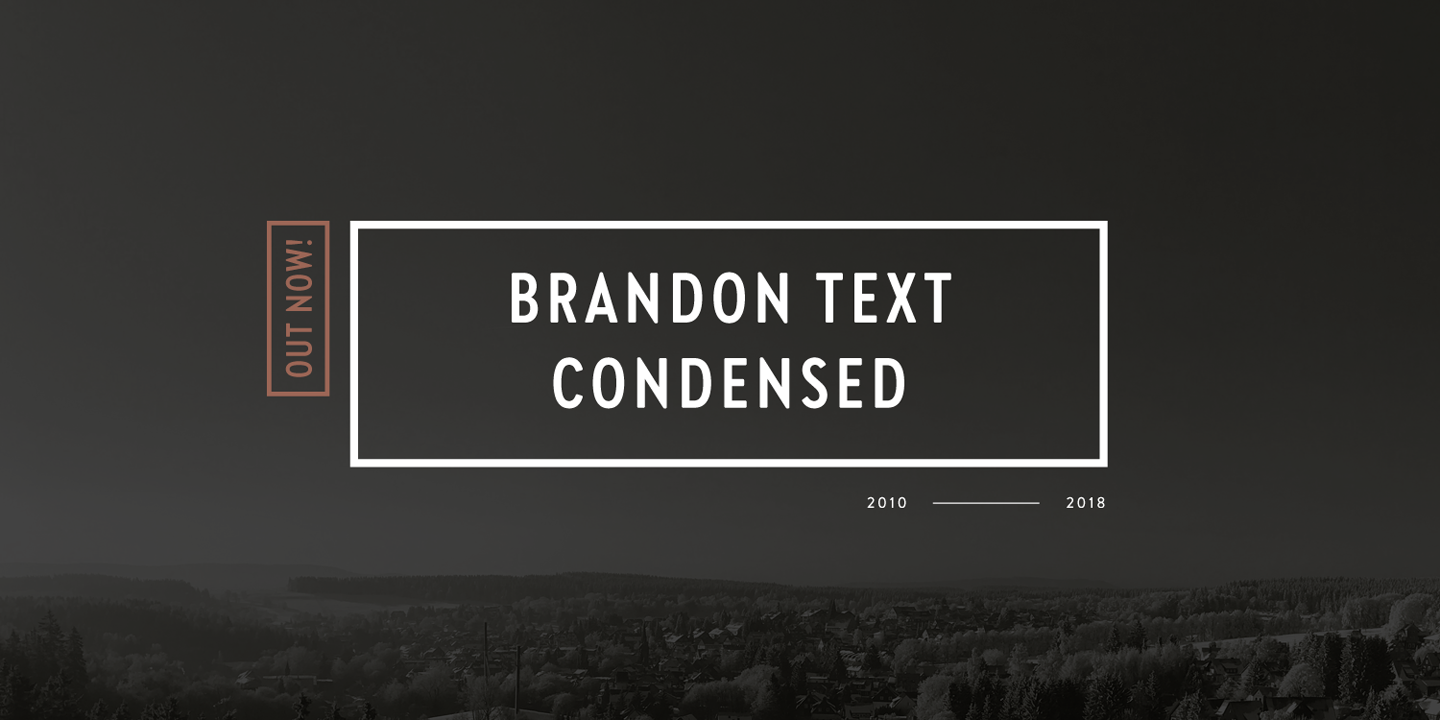
Brandon Text Condensed Font is perfect for space-efficient editorial layouts, narrow column newspaper designs, magazine sidebar content, compact mobile app interfaces, streamlined web typography, dense information displays, professional report formatting, multi-column publications, efficient corporate communications, and modern digital content that requires maximum readability in minimal space.
This font is exciting because it masterfully balances exceptional readability with space-saving efficiency, featuring condensed letterforms that maintain clarity and professional appearance while maximizing content density in constrained layouts. Brandon Text Condensed Font offers the perfect solution for modern designers who need to communicate more information without sacrificing typographic quality or reading comfort in tight spaces.
Brandon Text Condensed Font family includes Regular, Bold, Light, Medium, Thin, Black, Italic, and Extra Condensed versions, plus comprehensive punctuation sets, numerical symbols, professional marks, and space-efficient design elements that enhance the compact aesthetic and provide complete solutions for high-density text applications.
For space-efficient editorial and digital design projects, Brandon Text Condensed Font Free Download delivers outstanding readability and professional versatility. The font's condensed letterforms and efficient character make it perfect for publishers, digital agencies, and content-heavy brands seeking to maximize information delivery while maintaining excellent typography standards. Its compact design appeals to readers who expect clear, organized content presentation. The character set includes optimized numerals and symbols specifically designed for dense text applications and professional documentation. Professional designers appreciate its exceptional legibility in narrow spaces and its ability to maintain typographic sophistication while maximizing content efficiency across editorial layouts, digital interfaces, and corporate communications, making it essential for organizations that need to deliver comprehensive information with professional clarity and space-conscious design in today's content-rich digital environment.